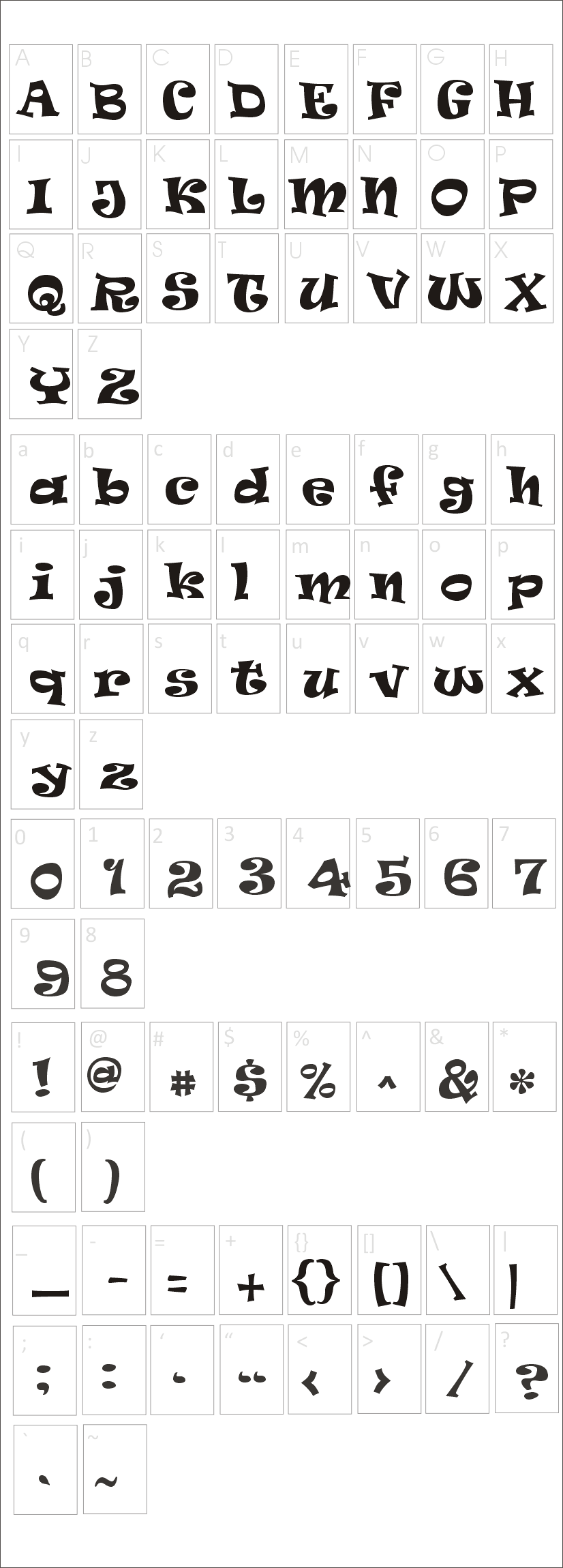
| Name | Ravie Font |
| Font Designer: | Ken O’Brien |
| Category | Sans-serif, Playful, Informal |
Ravie is a captivating font family known for its playful and informal design. Inspired by hand-drawn lettering, Ravie font features rounded bubbly letterforms with uneven strokes and varying baselines, creating a relaxed and friendly atmosphere.
Key Features of Ravie Font Family:
- Playful and Informal: Ravie’s hand-drawn style and rounded letterforms give it a casual and fun appearance.
- Versatile Usage: The font is suitable for a variety of projects, including children’s books, invitations, logos, and social media graphics.
- Multiple Weight Options: Ravie includes various weight options (e.g., Regular, Bold, Italic), allowing you to find the perfect style for your specific needs.
Uses for Ravie Font Family:
- Children’s Books: Ravie’s playful and friendly design makes it a great choice for children’s books and other educational materials.
- Invitations: Use Ravie to create fun and inviting invitations for parties, weddings, and other events.
- Logos: Ravie can be used to create playful and memorable logos for businesses or personal brands.
- Social Media: Incorporate Ravie into your social media graphics, captions, and profiles to add a touch of personality.